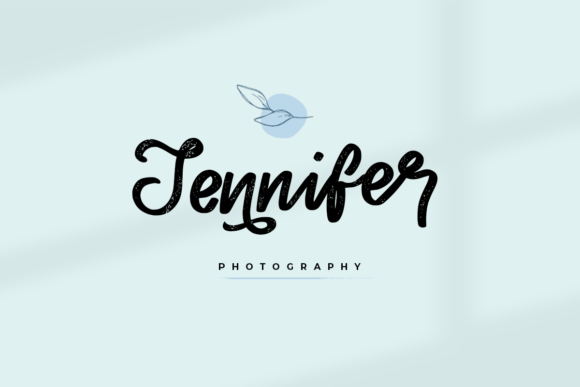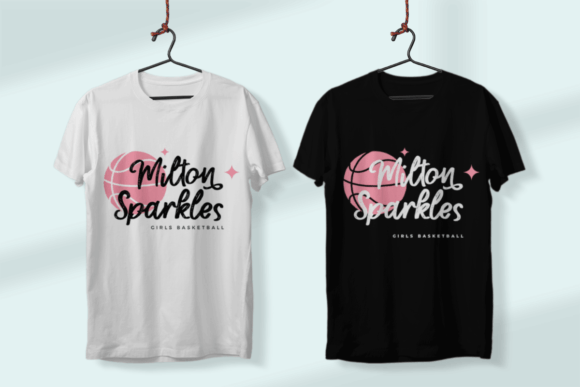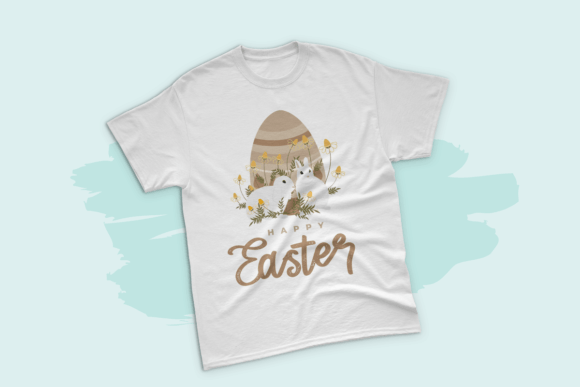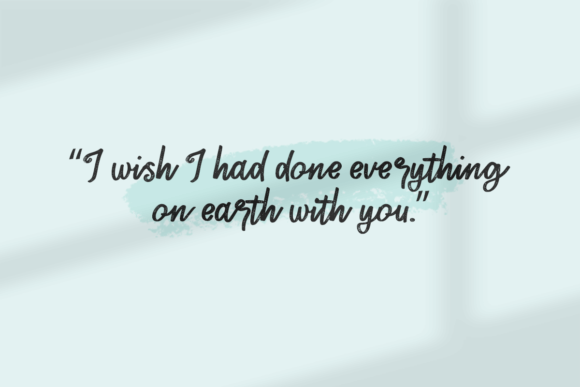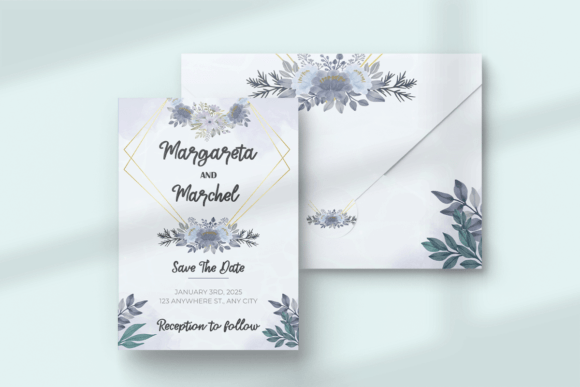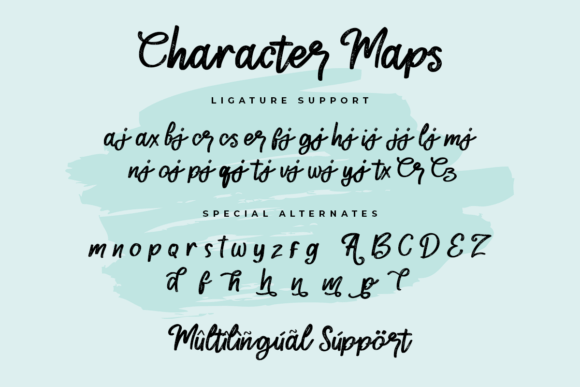
Introduction to Mackline Font
Have you ever stared at a blank canvas, waiting for inspiration to strike, only to have a single word or phrase pop into your head and set your creative juices flowing? That’s exactly what happened to us when we discovered the Mackline Font. Its elegant, handwritten design has a way of sparking ideas and elevating even the most mundane concepts into something truly special.
As designers, we’re always on the lookout for high-quality design resources that can help us bring our creative visions to life. And when it comes to adding a touch of sophistication and whimsy to our projects, the Mackline Font is an invaluable asset. With its transparent background and PUA encoded glyphs, this font is a dream to work with, making it perfect for product packaging, branding projects, magazine covers, and so much more.
Whether you’re working on a free download or a paid project, the Mackline Font is sure to bring a fresh and elegant look to your work. Its high-quality design and ease of use make it a must-have for any designer looking to take their creative projects to the next level.
Mackline Font
- High-quality, professional font perfect for creative projects and designs.
- Features a transparent background, allowing for easy integration into designs with varying backgrounds.
- Designed with high resolution in mind, ensuring crisp and clear text rendering at 300 DPI or higher.
- Unique, modern design with clean lines and subtle nuances, ideal for use in logos, branding, and marketing materials.
Honest Review: Mackline Font
As a designer, I’m always on the lookout for high-quality design resources to elevate my creative projects. The Mackline Font caught my attention with its modern and sleek aesthetic, and I was excited to put it to the test.
Here’s what I like about the Mackline Font: ✨
- Its transparent background makes it easy to layer over other design elements.
- The font is highly customizable, allowing me to adjust the size, color, and style to suit my project’s needs.
However, there are some limitations to consider: ⚠️
- The font may not be suitable for small text sizes, as it can become pixelated and difficult to read.
- The design may not be ideal for complex or intricate layouts, as it can become overwhelming.
Overall, I’m impressed with the Mackline Font’s potential, but it’s not a one-size-fits-all solution. With a little creativity and experimentation, I can see this font shining in the right projects. If you’re looking for a modern, high-quality design resource, the Mackline Font is definitely worth considering.
Mackline Font
The Mackline Font is a versatile and high-quality design resource perfect for creative projects. With its clean and modern aesthetic, it’s ideal for a variety of applications, from branding and marketing materials to digital products and print media.
Getting the Most Out of Mackline Font
To get the most out of the Mackline Font, consider the following tips:
- Combine the Mackline Font with other design elements to create a cohesive look.
- Use the font in a variety of contexts, from headings to body text.
Common Use Cases for Mackline Font
The Mackline Font is ideal for a range of creative projects, including:
- Branding and marketing materials.
- Digital products and e-commerce websites.
- Print media, such as brochures and business cards.
Is the Mackline Font suitable for high-resolution designs?
Yes, the Mackline Font is designed to be high-quality and scalable, making it perfect for high-resolution designs. Whether you’re working on a print project or a digital design, the font will maintain its clarity and legibility, even at large sizes or high zoom levels. This ensures that your design will look professional and polished, regardless of the output medium.